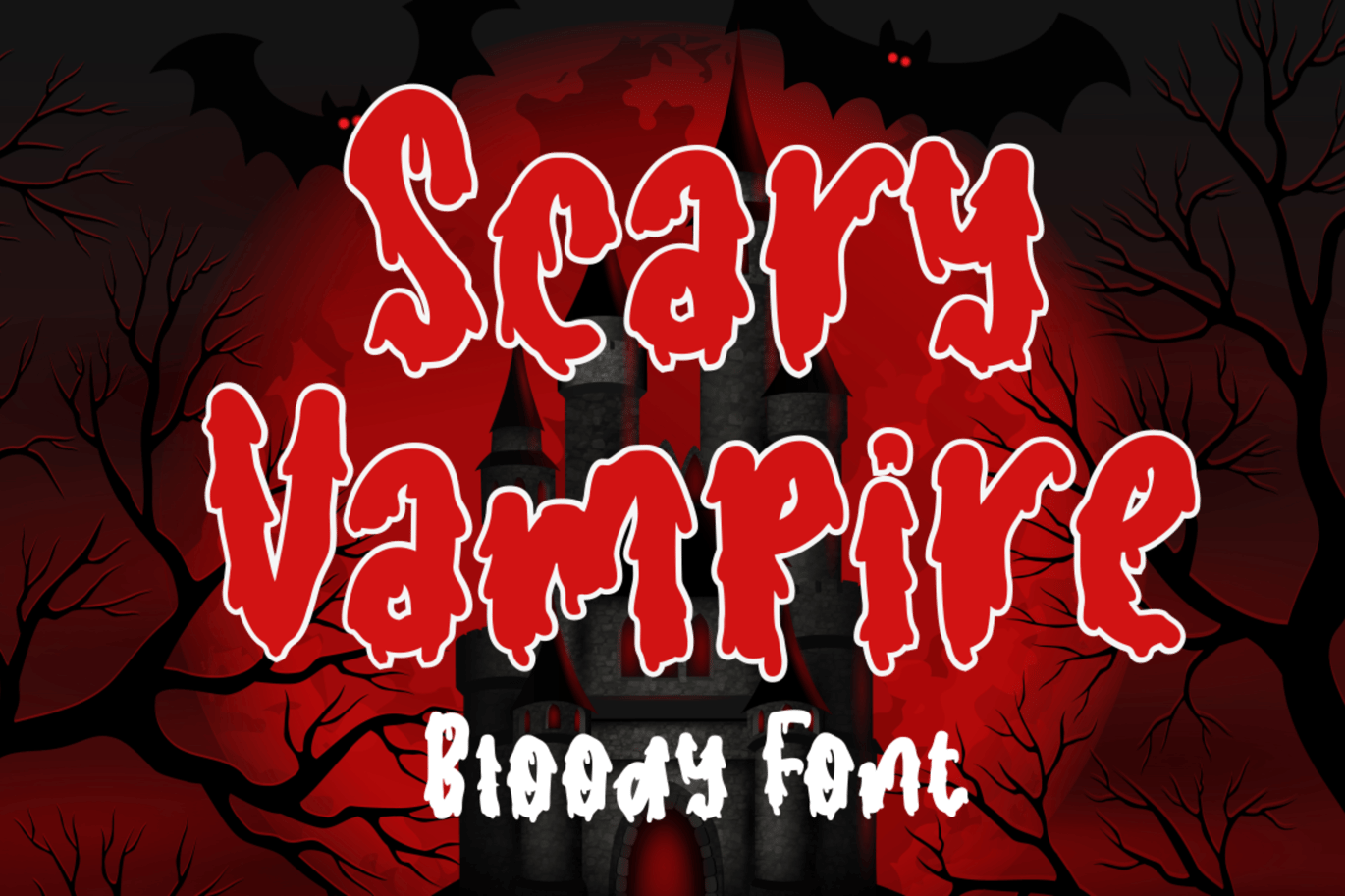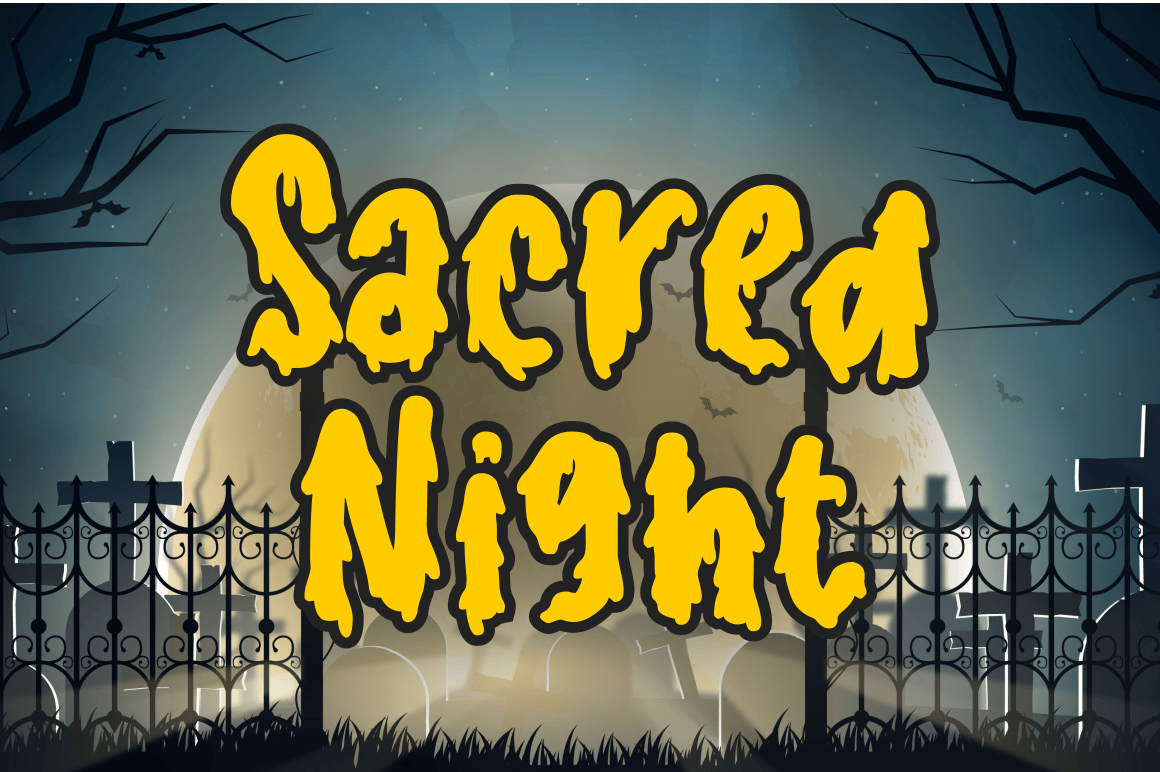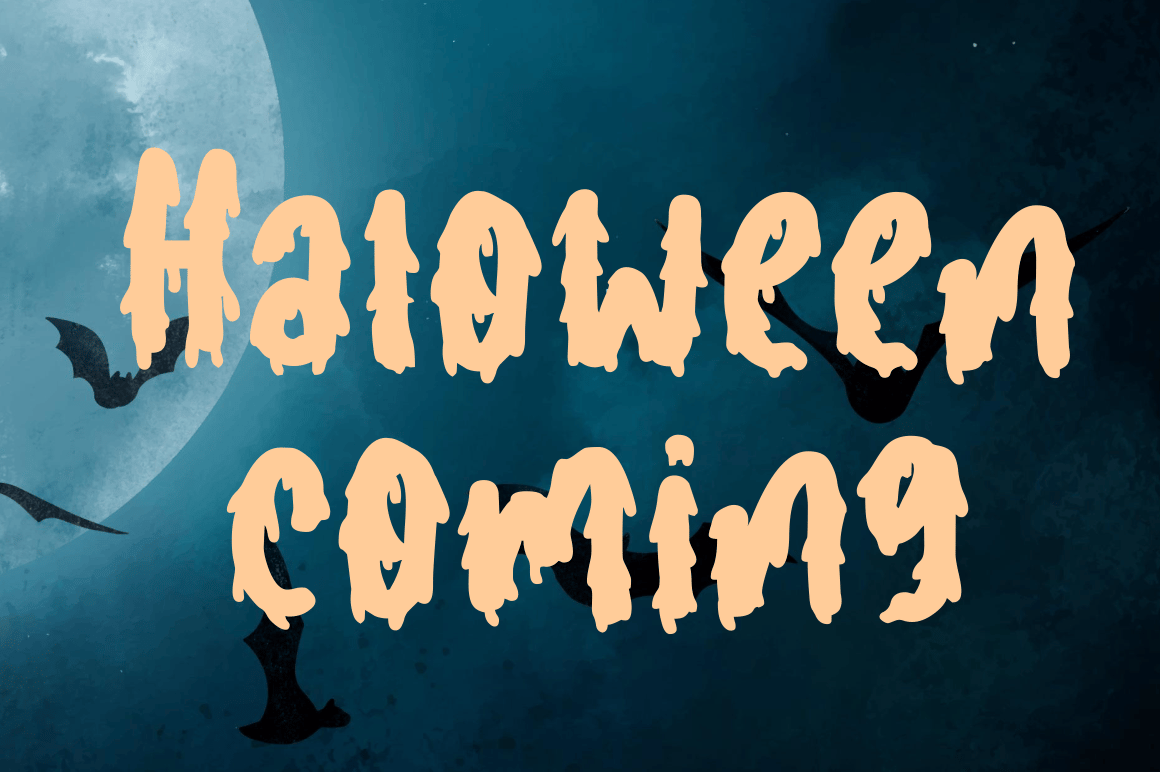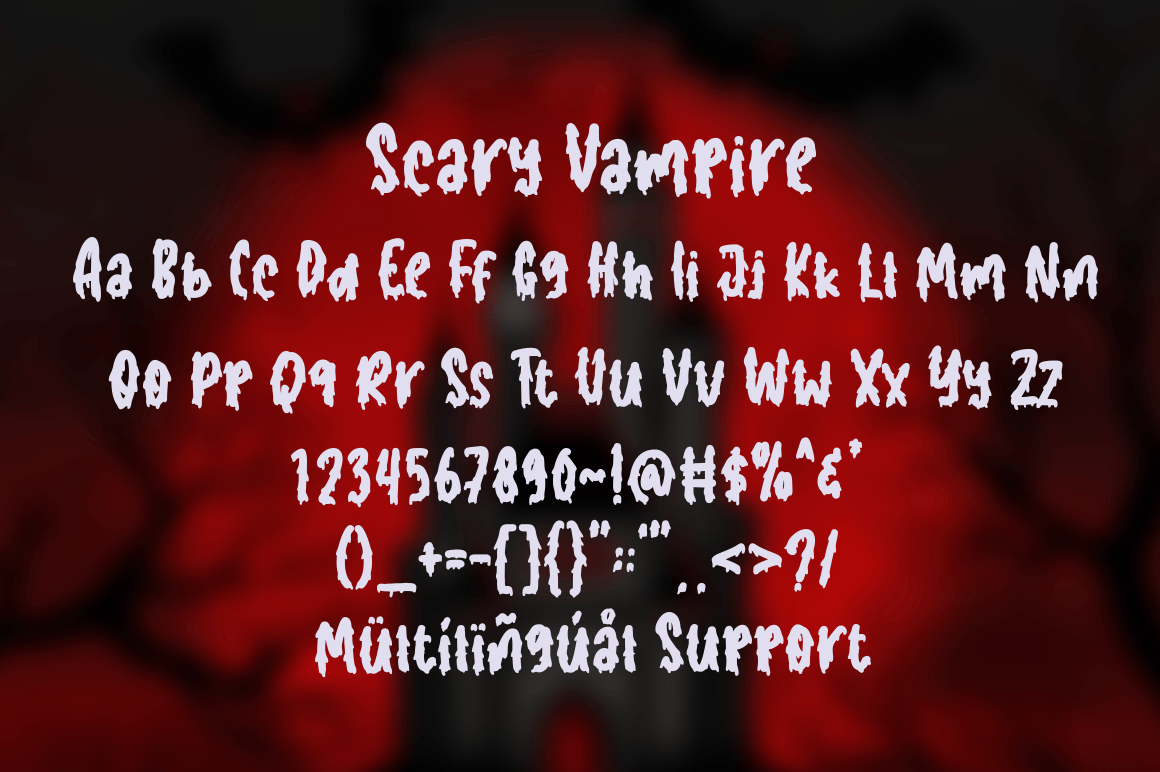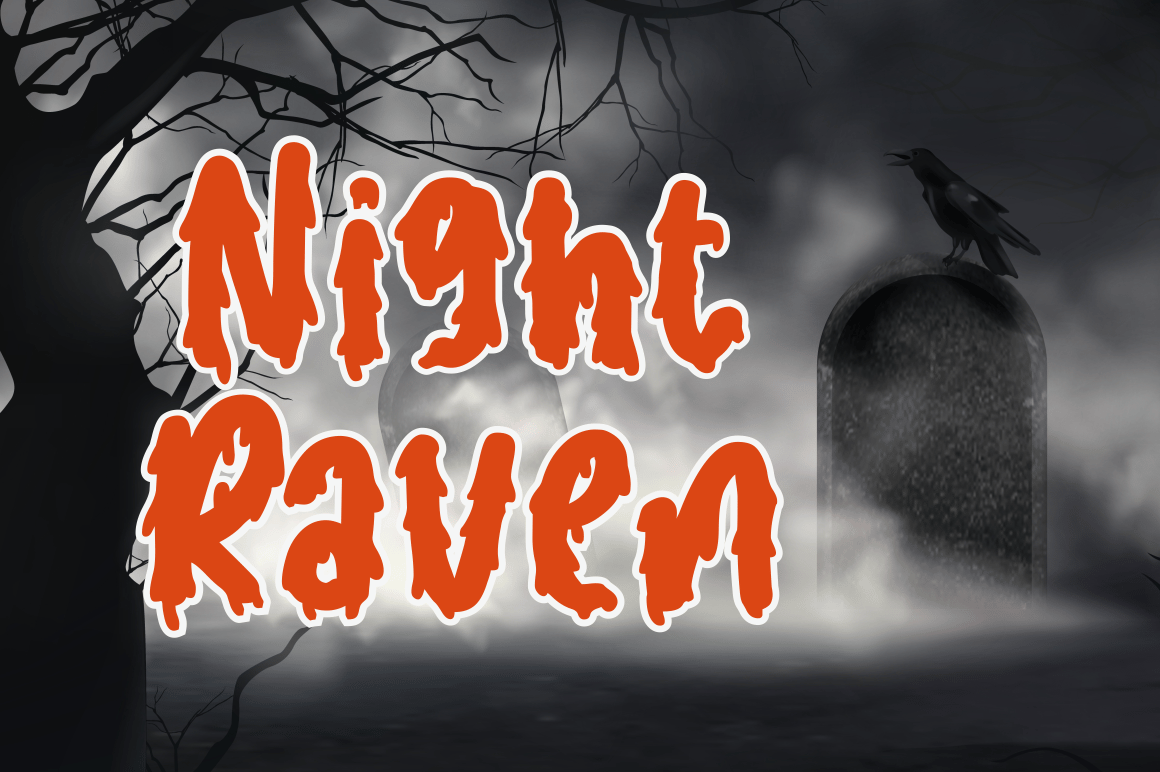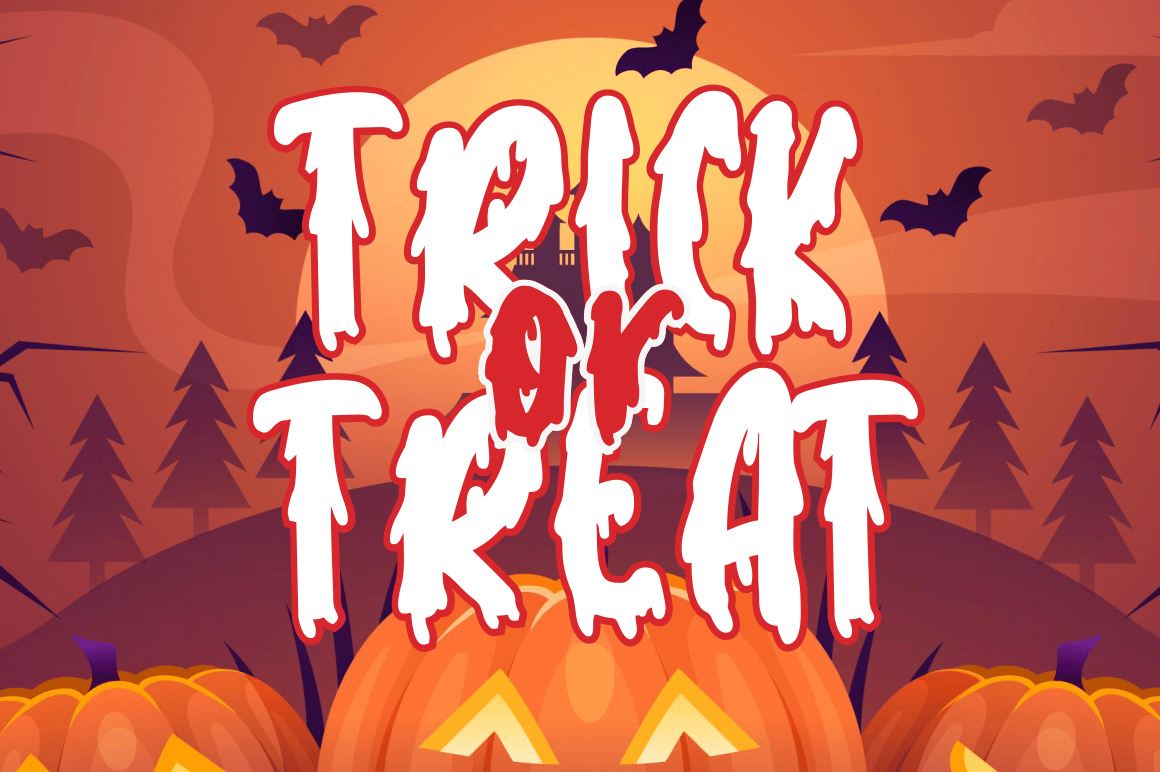
Scary Vampire – Bloody Font
Scary Vampire a bloody font that perfects for you any spooky project.
Scary Vampire comes with uppercase and lowercase letters, multilingual symbols, numerals, and punctuation.